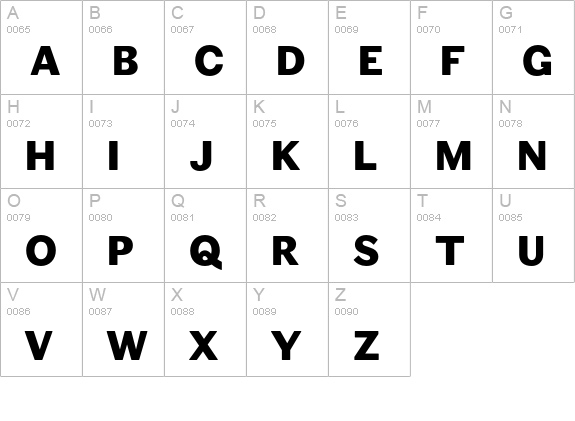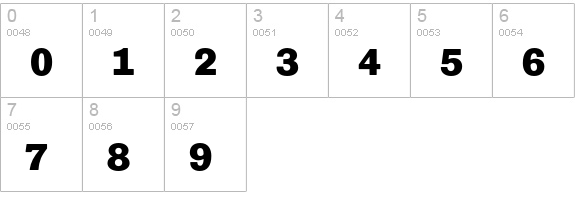
Figgins Sans Extra Bold is a strong, high-contrast variant in the Figgins typeface family \xE2\x80\x94 well suited to headlines, attention-grabbing titles, and strong calls-to-action.
Figgins Sans Extra Bold is a striking and impactful typeface that commands attention with its bold and sturdy appearance. Its clean lines and distinct letterforms make it ideal for headlines, titles, and other display purposes where you want to make a statement. The extra bold weight exudes confidence and strength, giving your designs a modern and powerful look. What makes Figgins Sans Extra Bold even more appealing is that it is available for free download at FontsMarket.com. This means you can easily access this high-quality font without any cost, allowing you to enhance your projects with a professional and eye-catching typography solution. Whether you're working on a poster, logo, website, or any other design project, Figgins Sans Extra Bold is sure to make a bold and memorable impression.